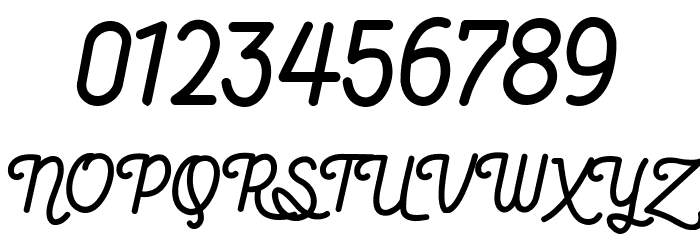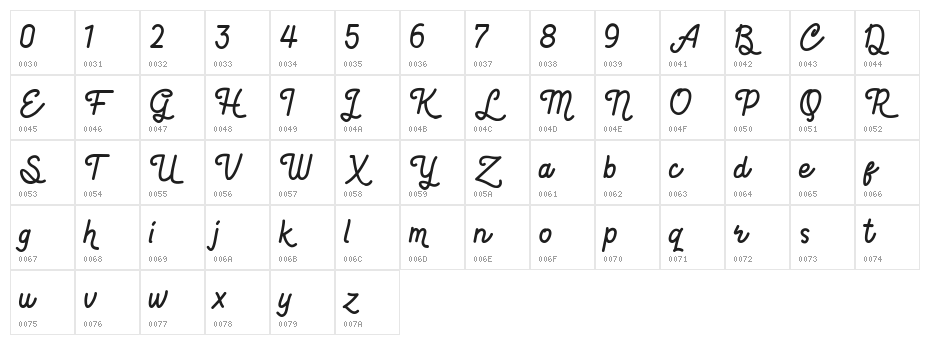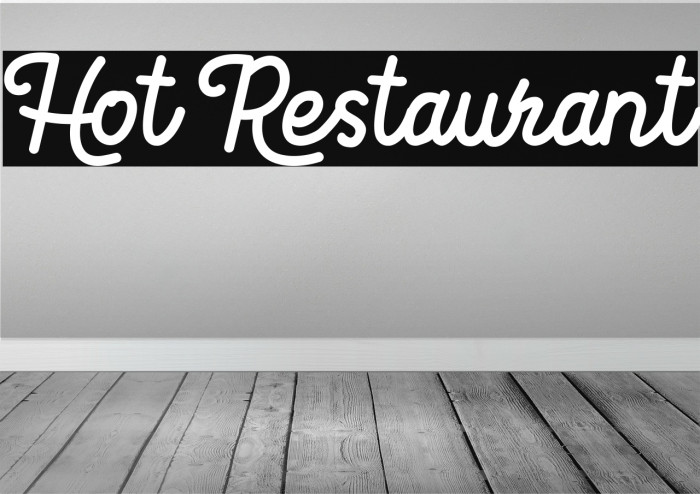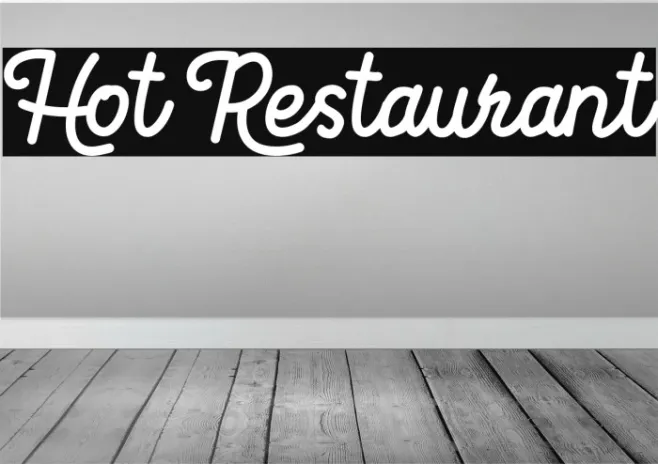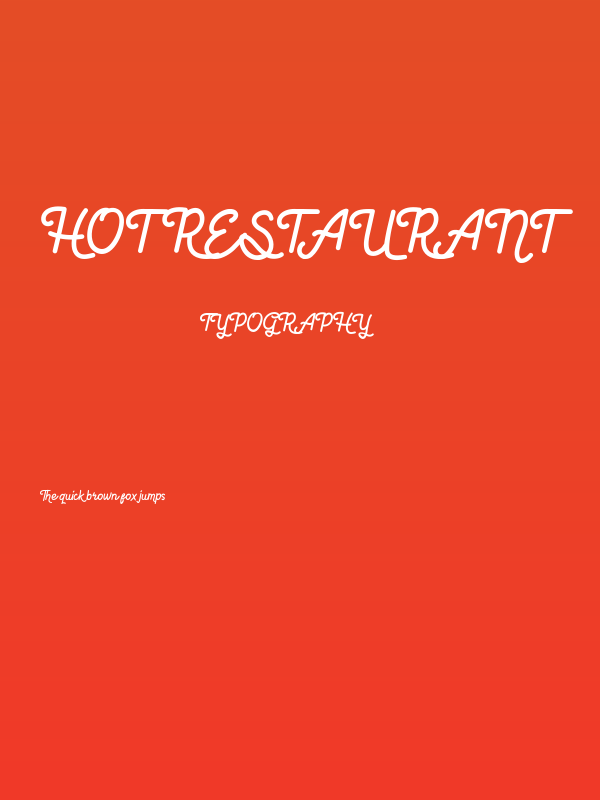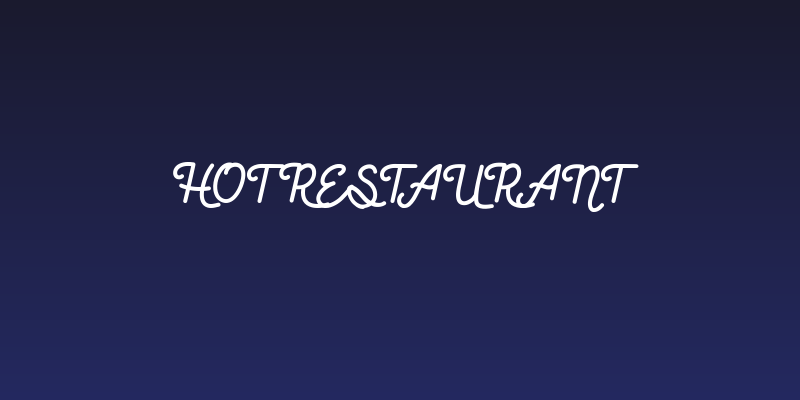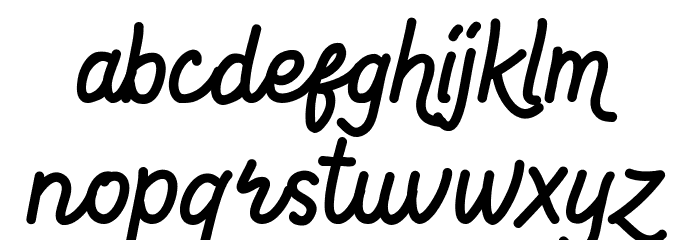
Hot Restaurant Font
Hot Restaurant Description
This font features a playful and dynamic script style with a handwritten appearance. The letters are interconnected, giving a fluid and continuous look. The uppercase characters maintain a consistent height, while the lowercase letters have a slight slant, enhancing the casual feel. The numbers are rounded and maintain the same playful style as the letters. Special characters are integrated seamlessly, maintaining the overall aesthetic. The strokes are moderately thick, providing good legibility while retaining the decorative nature of the script.
| Use Case | Logos, Invitations, Menus |
| Proposed Projects | Ideal for restaurant menus, greeting cards, invitations, and branding projects that require a personal touch. |